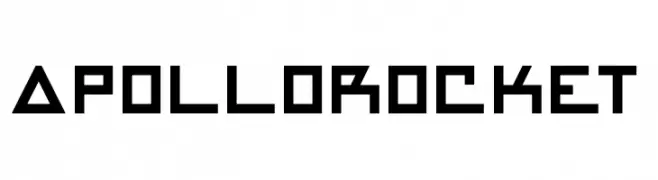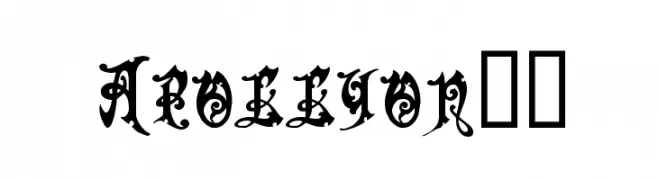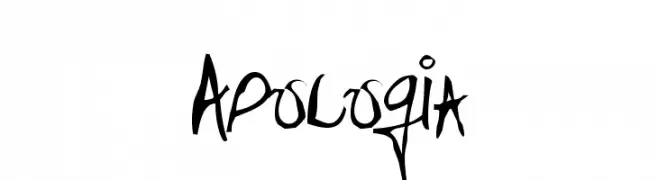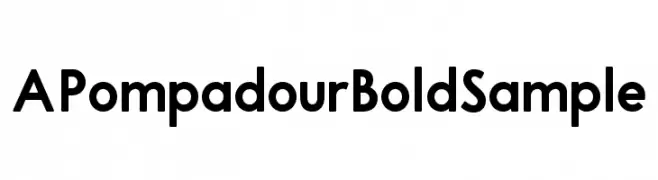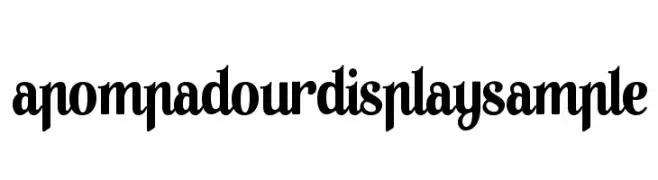
A bold, decorative font with intricate swirls and embellishments.
A bold, geometric font with a futuristic and technical design.
A dynamic, handwritten font with playful and irregular strokes.
A bold, modern font with clean lines and a strong presence.
A bold, high-contrast decorative font with elegant curves and expressive style.